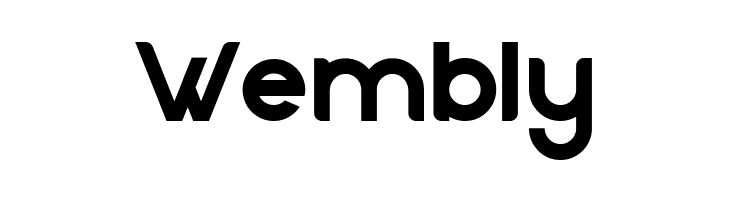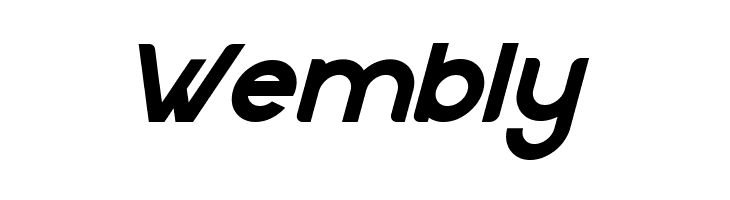
Nazegul Font
A bold, geometric font with a modern and sleek design.
Nazegul Italic Font
A modern, italicized font with bold strokes and a dynamic style.